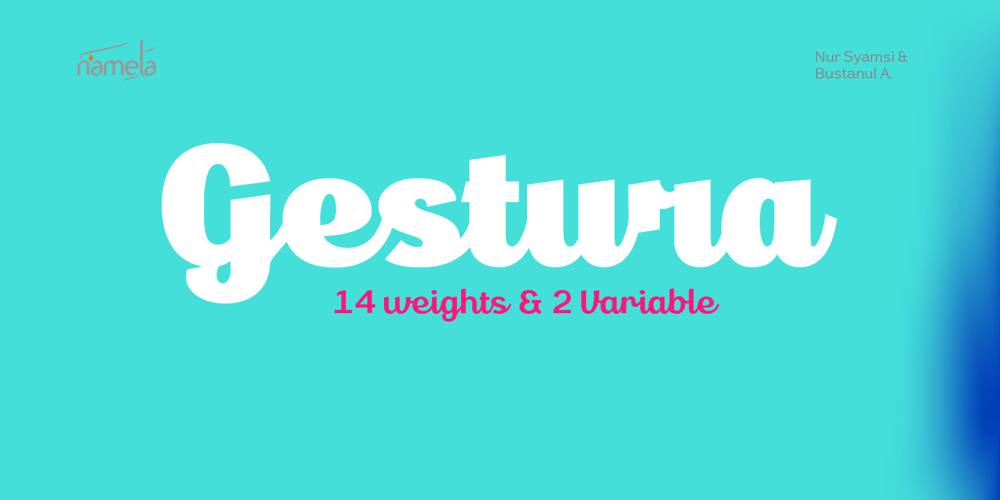
Gestura Font Family was designed by Nur Syamsi, Bustanul Arifin and published by NamelaType. Gestura contains 16 styles and family package options. Gestura is a Connecting script font that has an angled terminal upturned tail at the end of the ascender, and a flat terminal at the end of each letter, giving a bold impression in a script font.Gestura consists of 14 styles from Light to Black with each matching italics, 2 Variable Font; Upright and Oblique.